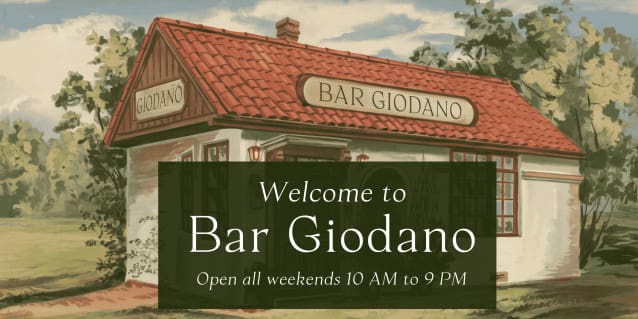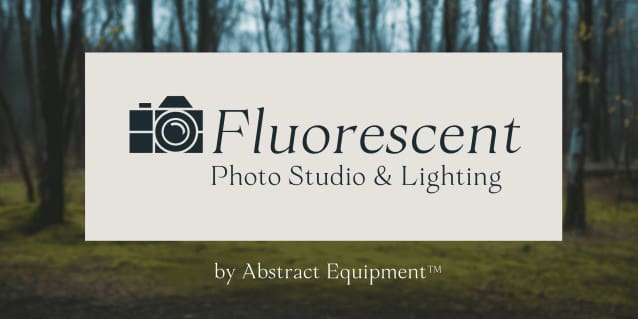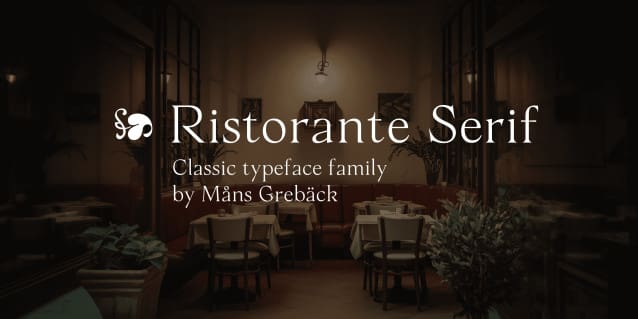
Ristorante Serif Font
Ristorante Serif Font is a thin and refined typeface. Its clean lines and subtle serifs evoke a classic sophistication, perfect for high-end branding.